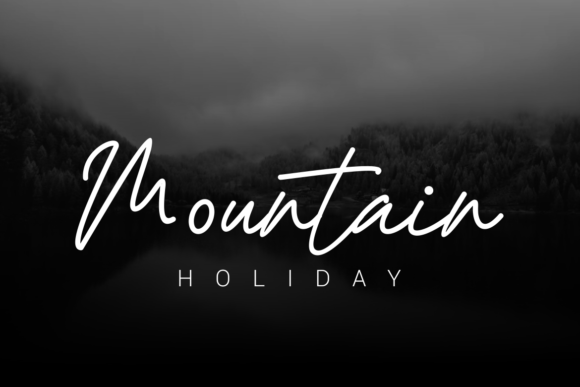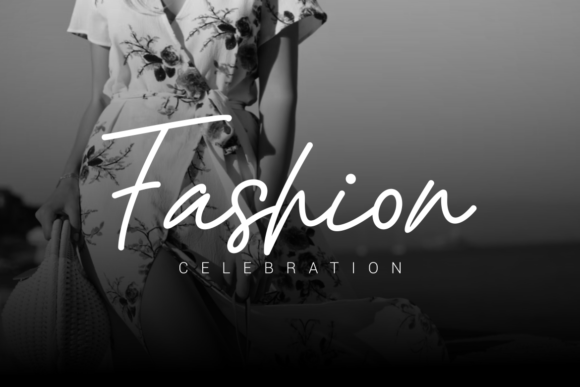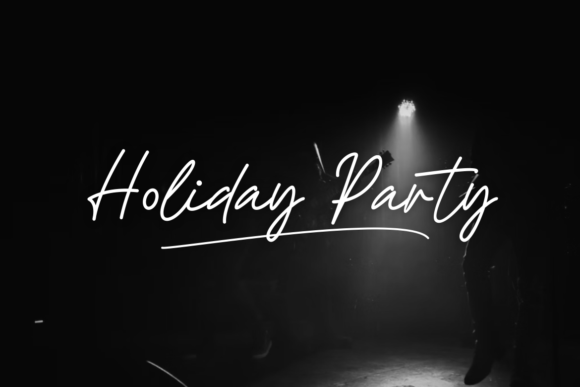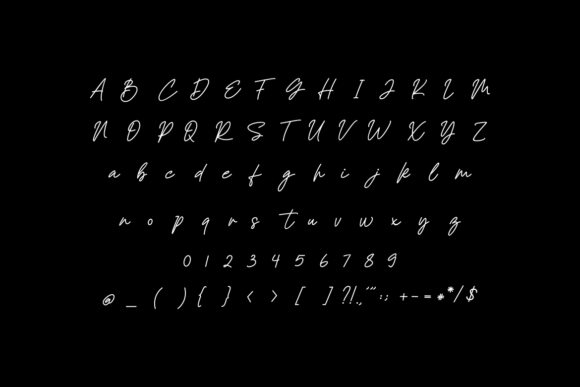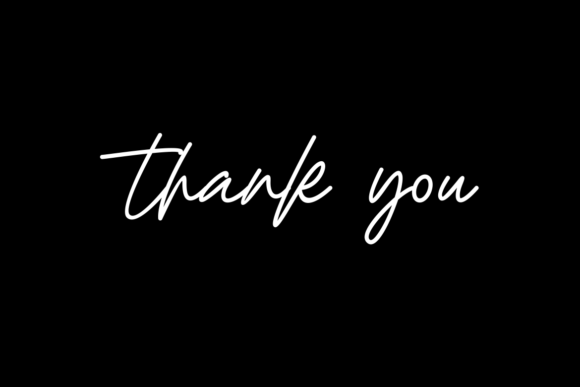
Introduction to Hafetareha Font
Hafetareha is a slim and authentic script font.
The font is suitable for any branding project like logo, t-shirt printing, esports, and many more It will look outstanding in a wide range of contexts.
Key Features of Hafetareha Font